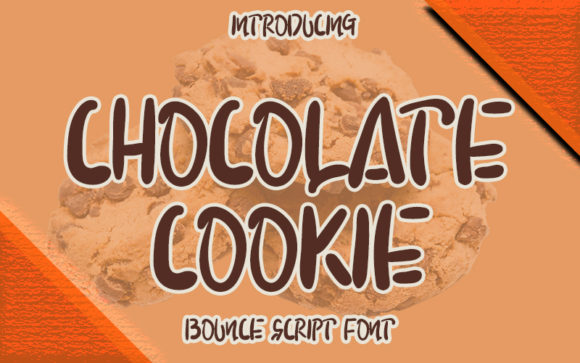
Unleash your creativity with Chocolate Cookie Font, the delightful handwritten font that exudes warmth and charm. Its playful and casual nature makes it perfect for adding a personal touch to your projects.
Step into a world of endless possibilities with Chocolate Cookie Font, the perfect companion for your modern website. Its unique and eye-catching style will make your content stand out, leaving a lasting impression on your audience.
Let your imagination run wild as you craft stunning logos, heartwarming invitations, and captivating social media posts. Chocolate Cookie Font transforms ordinary text into extraordinary expressions of art, adding a touch of whimsy and delight to every creation.
Immerse yourself in the world of DIY projects and let Chocolate Cookie Font be your artistic guide. From personalized greeting cards to one-of-a-kind home décor, this font will elevate your creations to new heights. Its charming and versatile nature lends itself to endless possibilities, allowing you to turn your visions into tangible masterpieces.
With Chocolate Cookie Font by your side, you'll discover a new level of inspiration and creativity. Its user-friendly design makes it accessible to anyone, regardless of their design expertise. Unleash your inner artist and let your imagination soar as you bring your ideas to life.